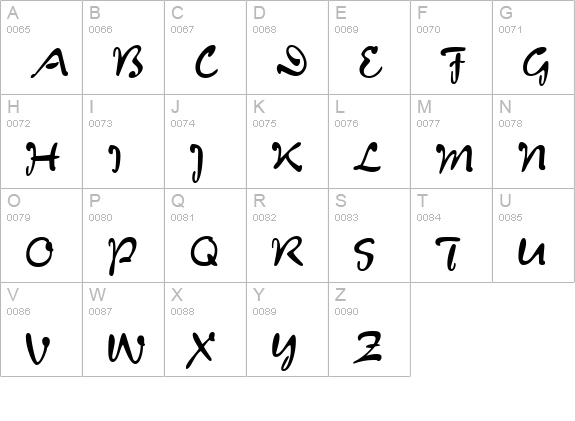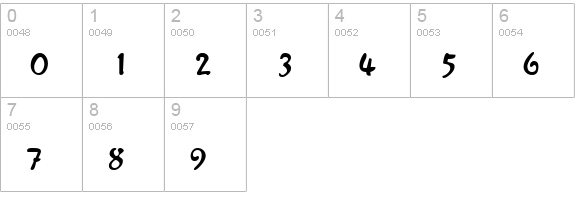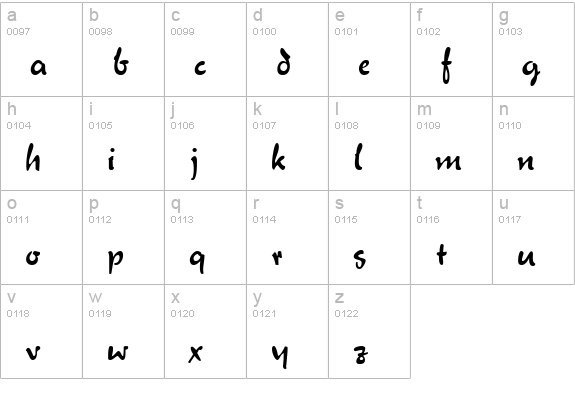
Menthol Regular Font Details
Menthol Regular is the standard, neutral variant in the Menthol typeface family \xE2\x80\x94 well suited to general body text, paragraphs, and standard typographic work.
Menthol Regular font is a versatile and modern typeface that exudes a sense of sophistication and style. Its sleek lines and rounded edges make it a perfect choice for a wide range of design projects, from branding and advertising to web design and packaging. With its clean and crisp appearance, Menthol Regular font is sure to make a statement and capture the attention of your audience. Whether you're looking to create a professional business presentation or a trendy poster for an event, this font has you covered. The best part? Menthol Regular font is completely free to download at FontsMarket.com. So go ahead and elevate your designs with this elegant and timeless typeface today!